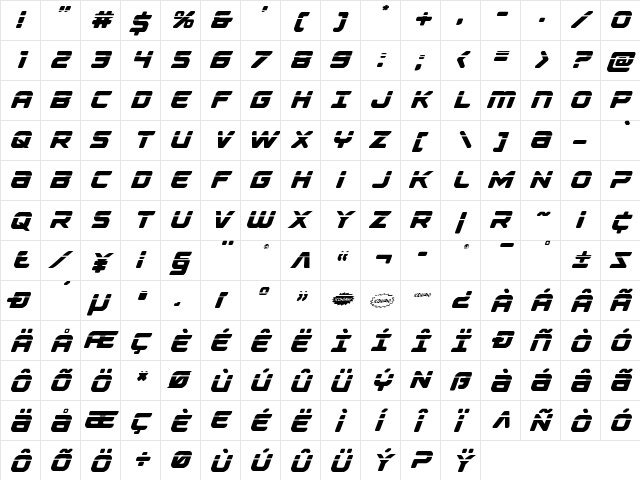
Falcon Punch Laser Regular
Design Context for Falcon Punch Laser Typeface
Falcon Punch Laser is a composed and adaptable typeface that performs quietly and consistently across a wide range of design contexts.